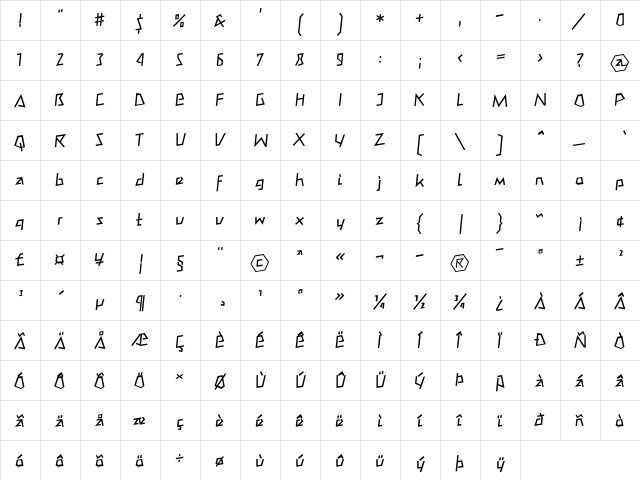
MateoRomanLL Medium
Design Context for MateoRomanLL Typeface
MateoRomanLL is a composed and adaptable typeface that performs quietly and consistently across a wide range of design contexts.